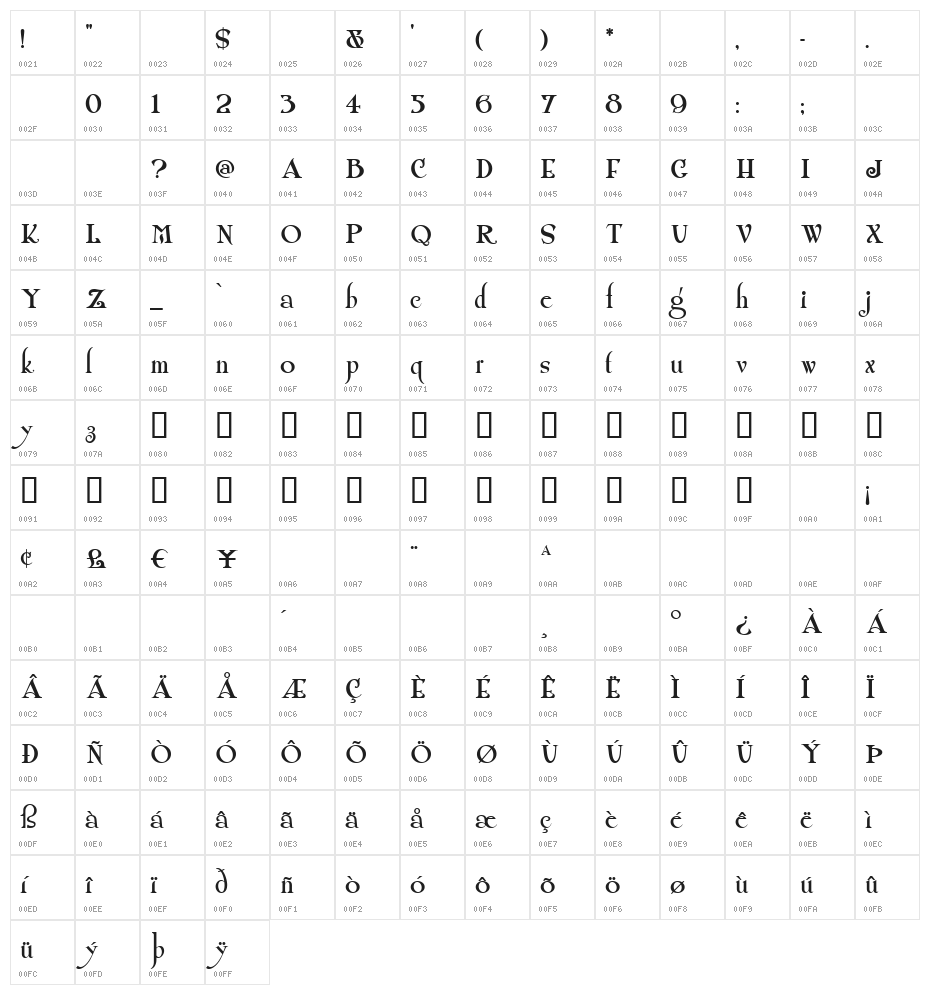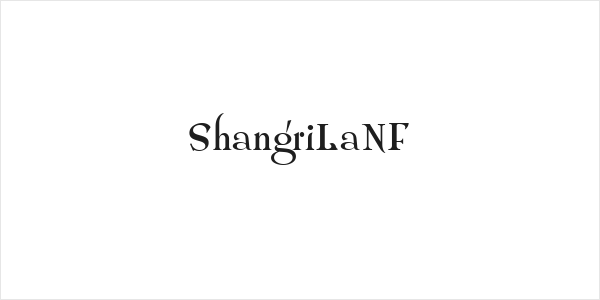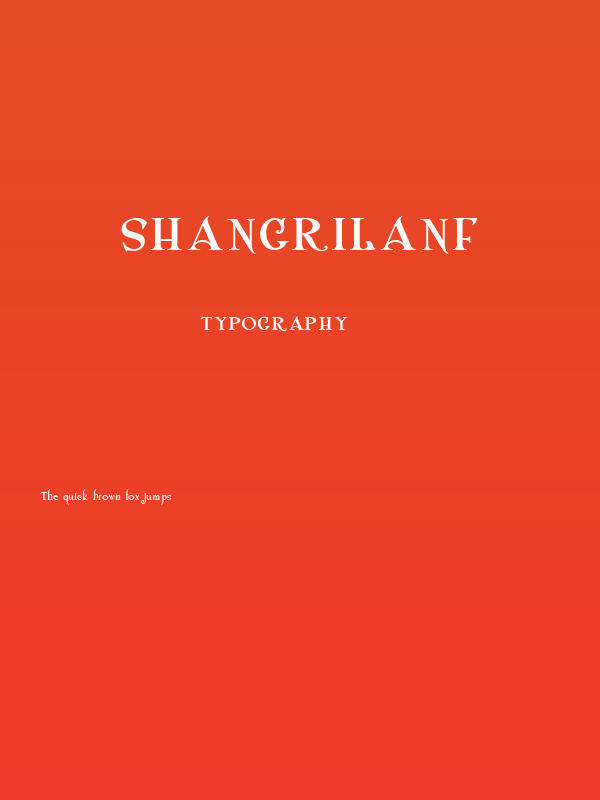
ShangriLaNF Font
ShangriLaNF Description
This font features a unique blend of classic and decorative elements, characterized by its elegant curves and distinct serifs. The uppercase letters exhibit a bold presence with artistic flourishes, particularly noticeable in letters like 'G' and 'Q'. The lowercase letters maintain a consistent style, with some characters like 'g' and 'y' showcasing intricate loops. Numbers are bold and clear, ensuring readability. Special characters are designed with a touch of flair, adding to the overall decorative appeal. The font's style is both sophisticated and playful, making it versatile for various design needs.
| Proposed Projects | Ideal for branding, invitations, posters, and any project requiring a touch of elegance and creativity. |